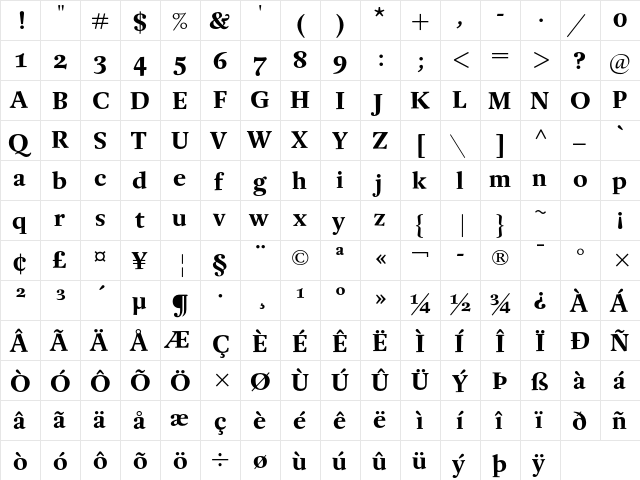
Buccardi Std Bold
Design Context for Buccardi Std Typeface
Buccardi Std is a composed and adaptable typeface that performs quietly and consistently across a wide range of design contexts. The heavy weight commands attention and anchors typographic hierarchies.